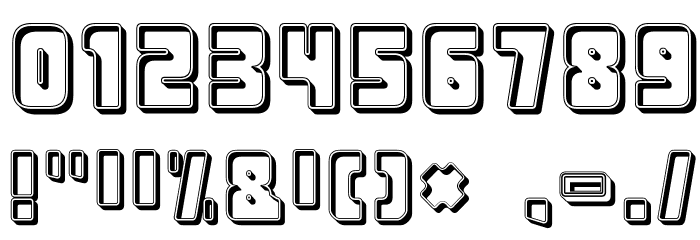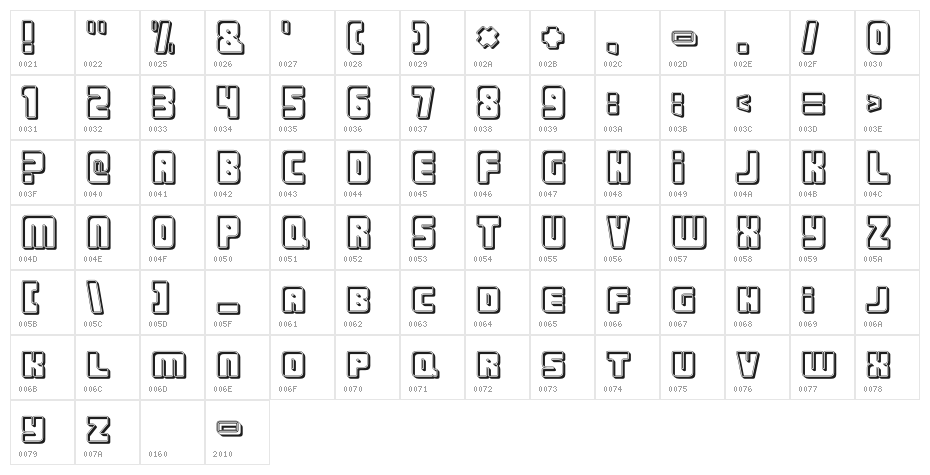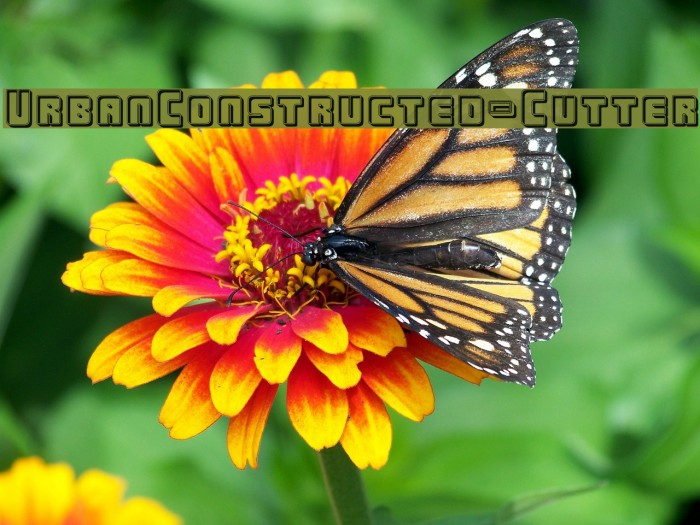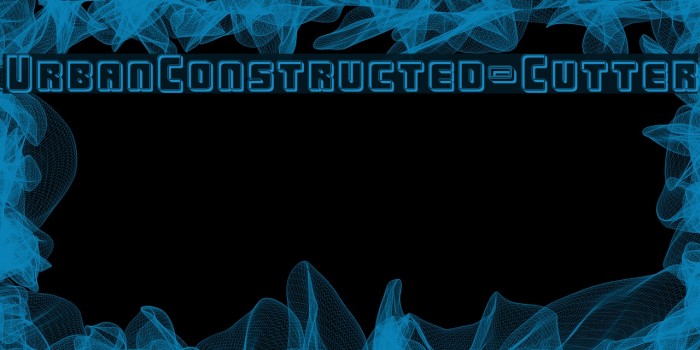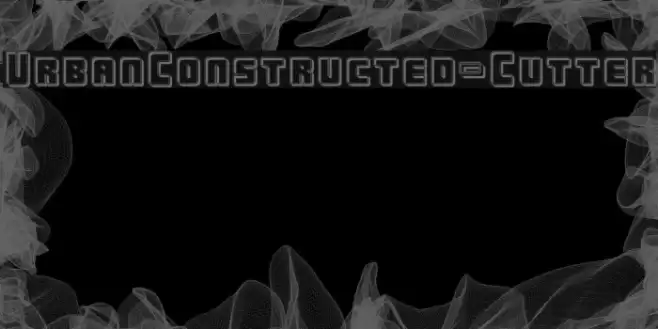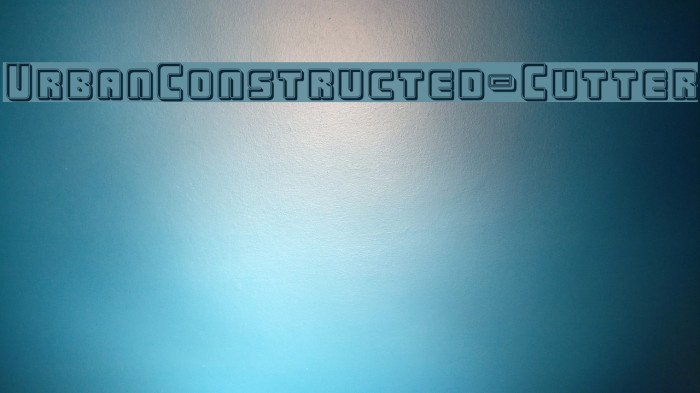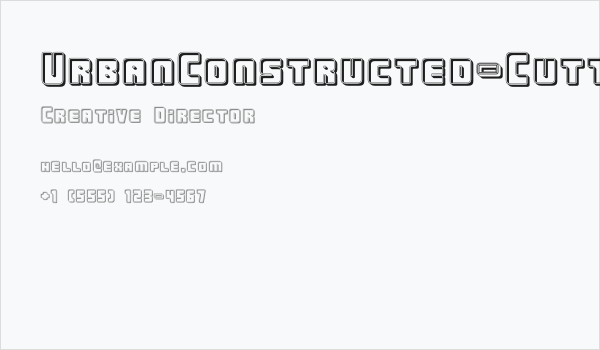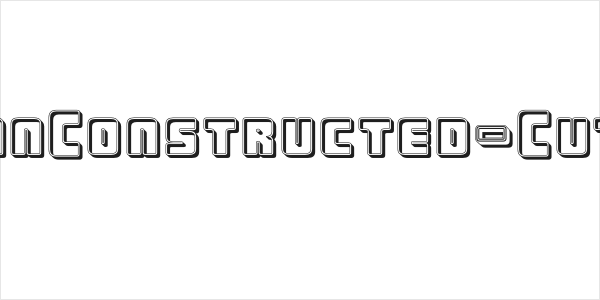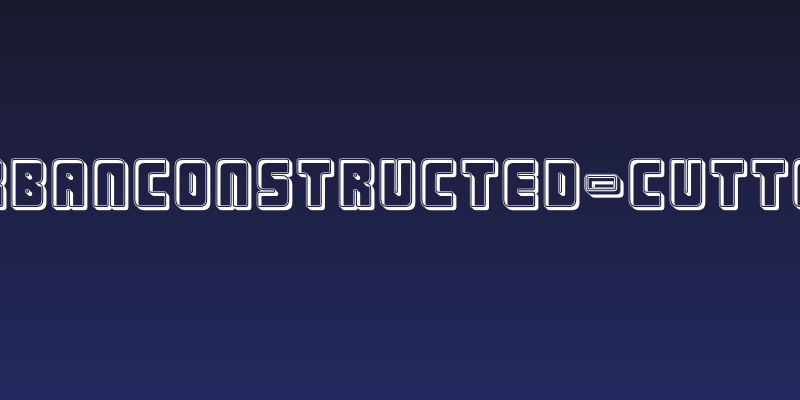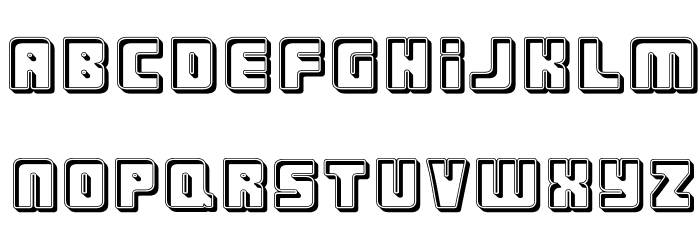
UrbanConstructed-Cutter Font
UrbanConstructed-Cutter Description
This font features a bold, industrial design with a three-dimensional effect, created by its thick outlines and inner shadowing. The characters are blocky and geometric, giving a sense of strength and modernity. Each letter and number is distinct, with sharp angles and a consistent width, making it highly legible. The style is reminiscent of urban architecture, with a futuristic twist. The special characters maintain the same robust design, ensuring uniformity across all glyphs.
Proposed ProjectsIdeal for urban-themed posters, architectural branding, video game titles, and modern industrial design projects.